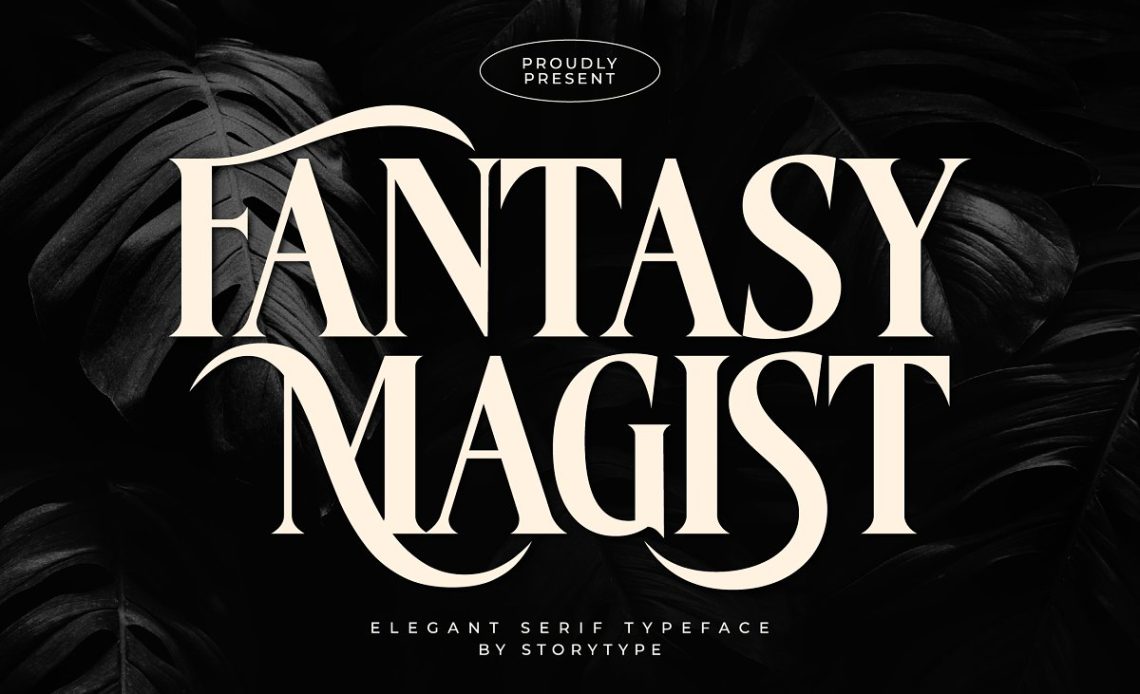
Introducing Fantasy Magist, the elegant serif font designed to add a touch of luxury to any project. Created by Rena Marliana and proudly presented by Storytype, this font is the perfect choice for those looking for a modern and classic typeface with a unique style.
With its sophisticated and refined look, Fantasy Magist is the best font for web design 2014, ideal for creating an elegant and luxury logo, book or movie title design, fashion brand, magazine, clothes, lettering, quotes, and so much more. Its versatility allows it to be used in a wide range of projects, making it a must-have for any designer.
Experience the feeling of sophistication and luxury that Fantasy Magist brings to your projects. With its unique style and modern look, it's the perfect addition to any design that needs a touch of elegance. Get it today and elevate your design game!